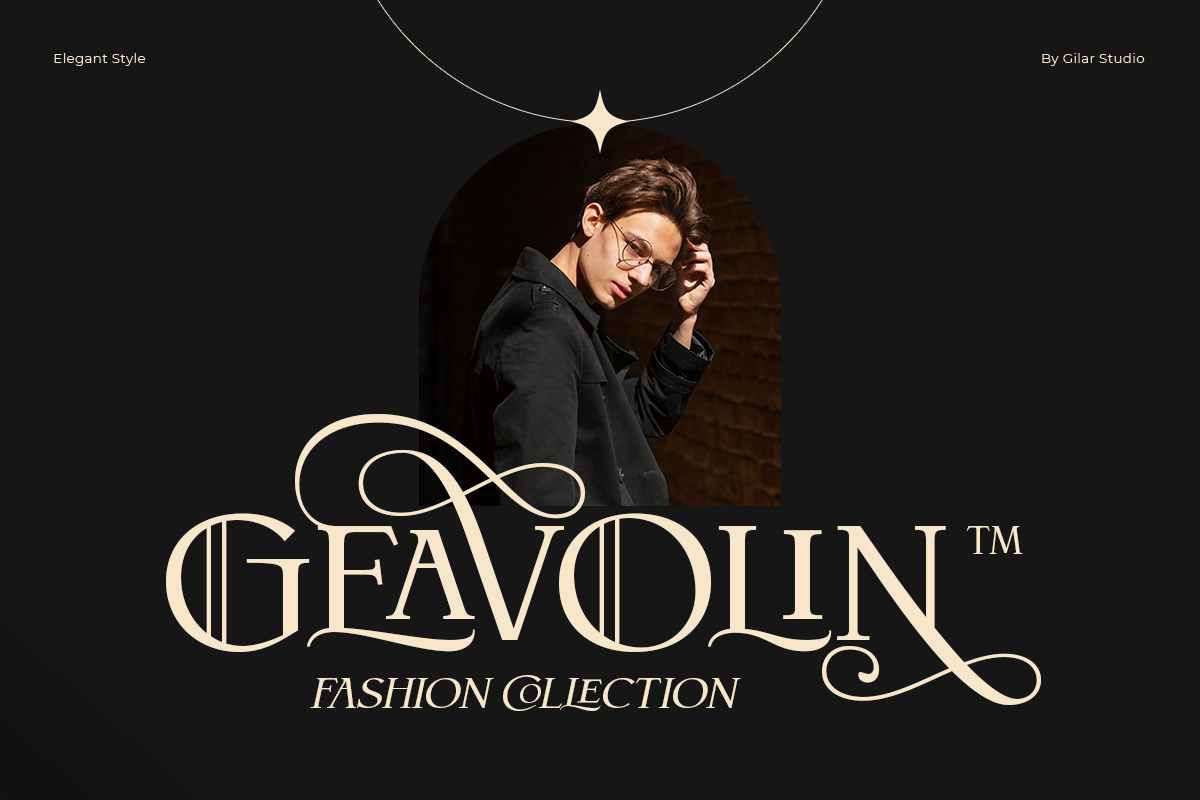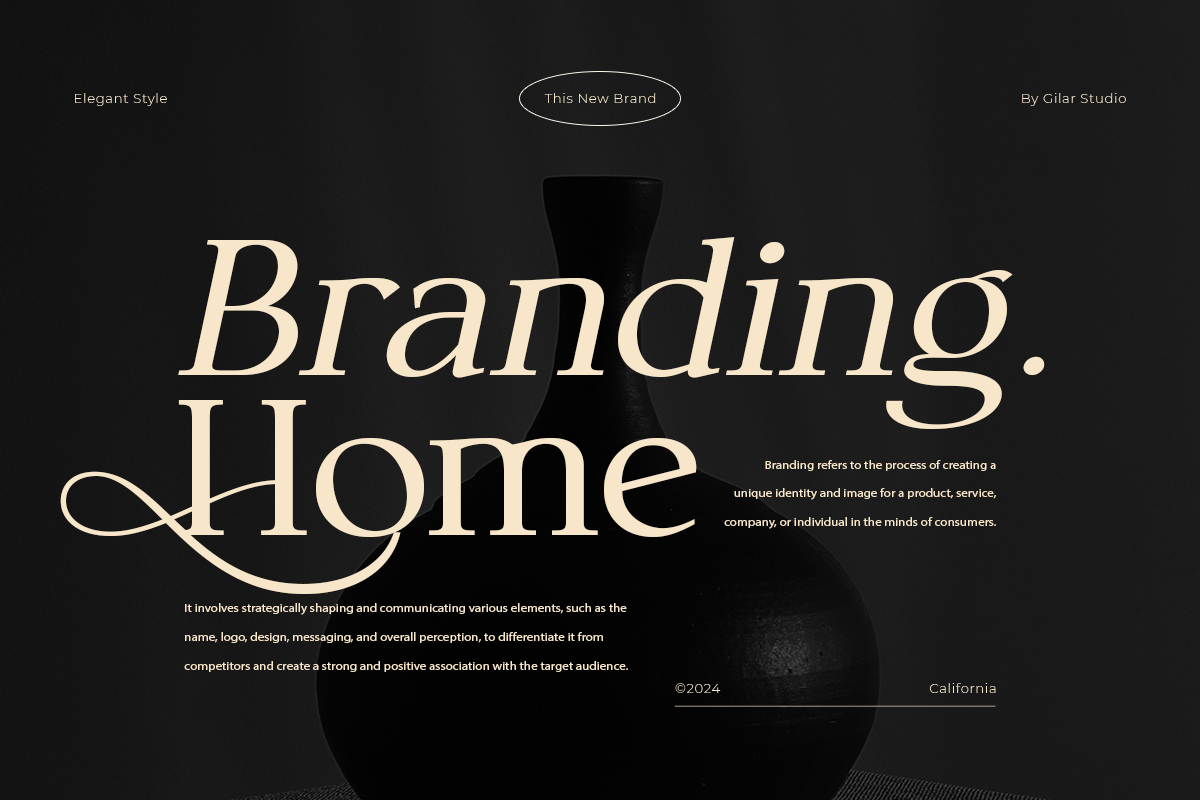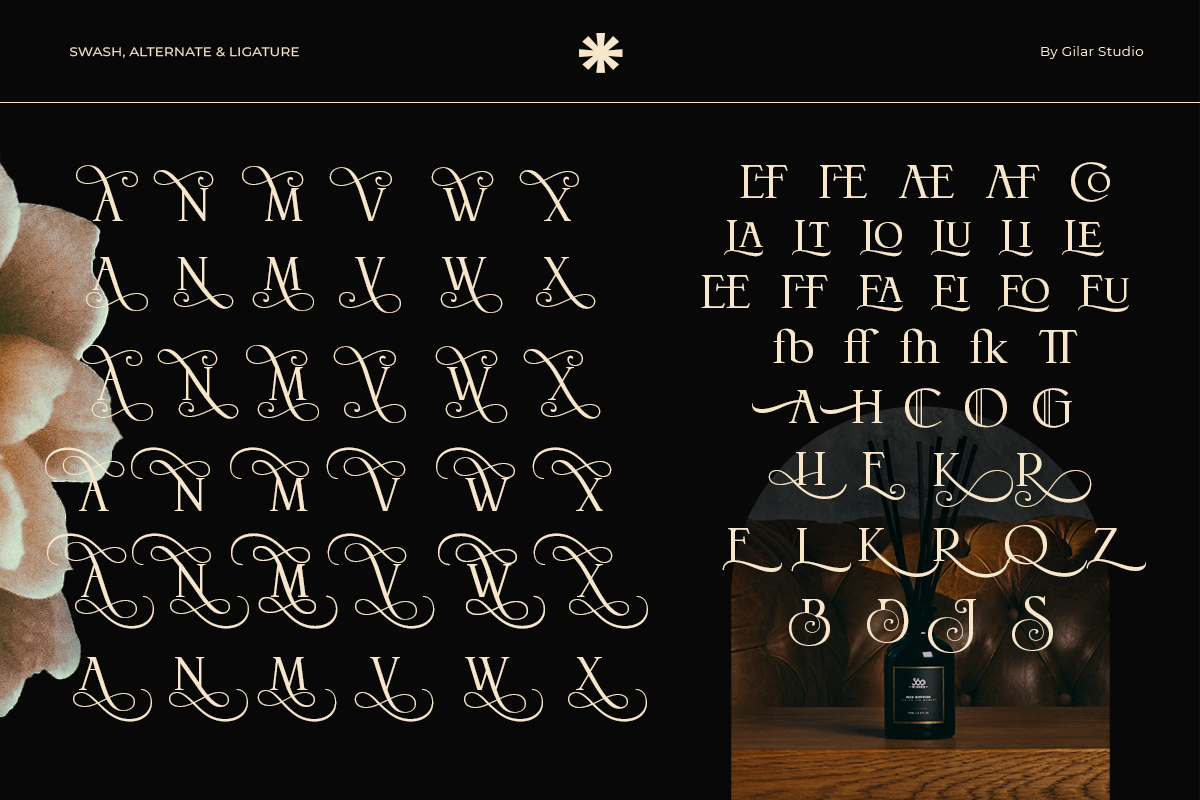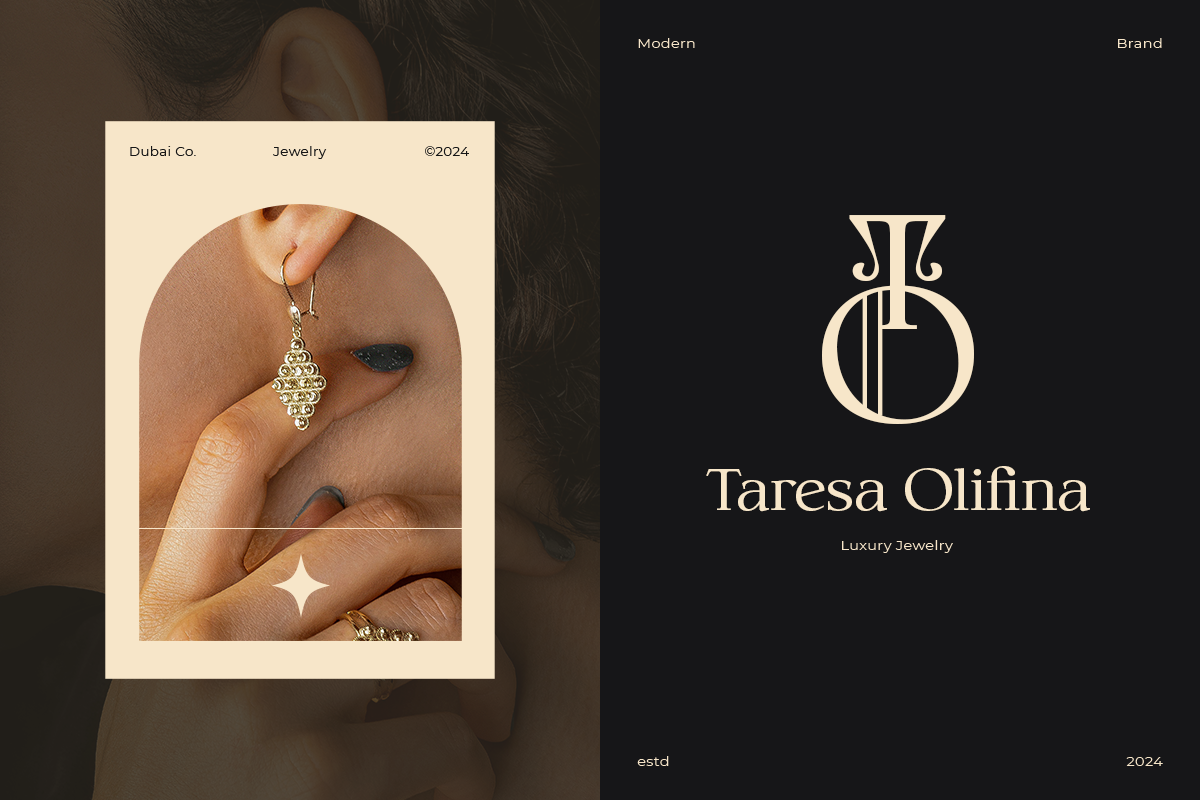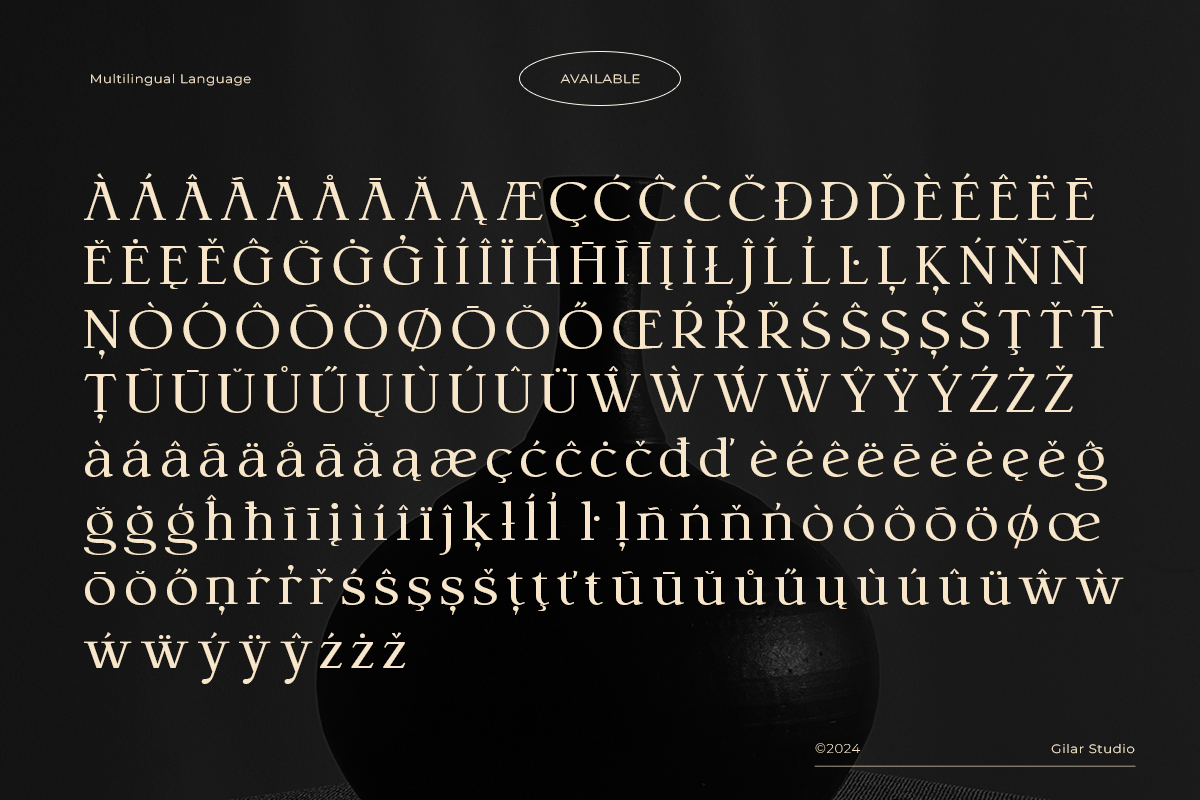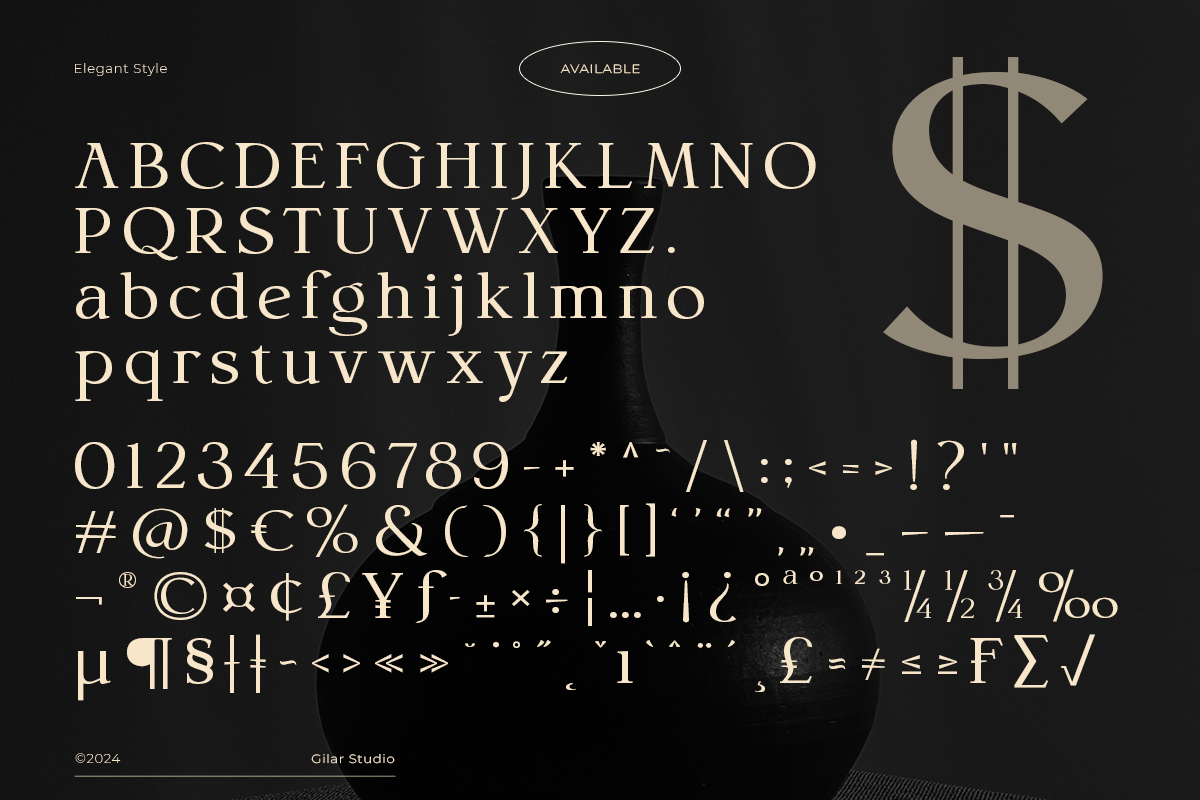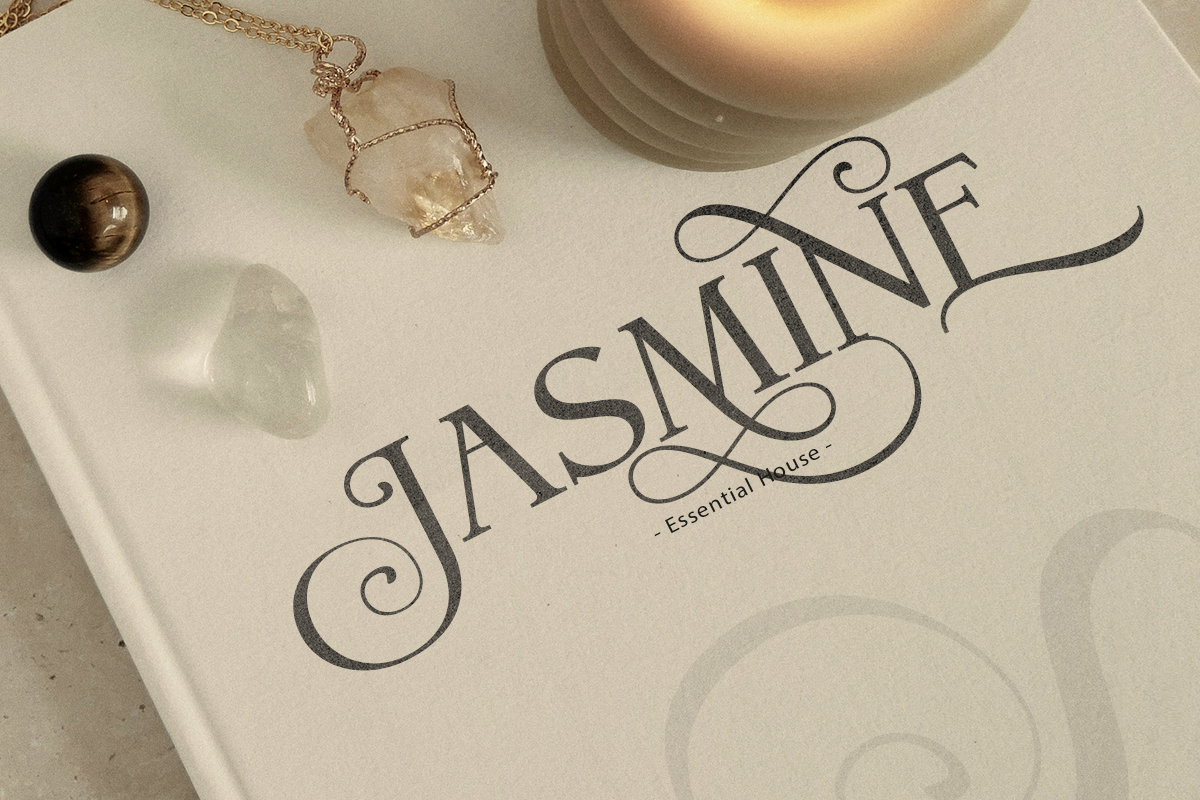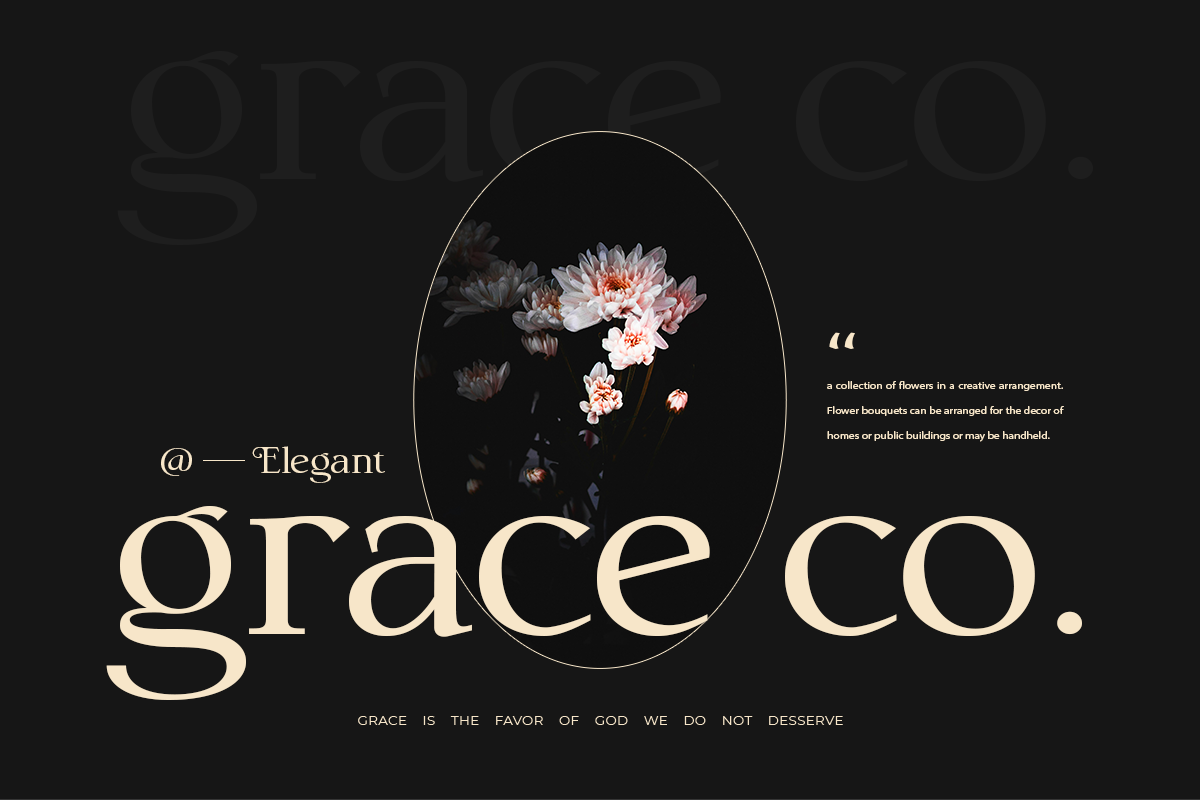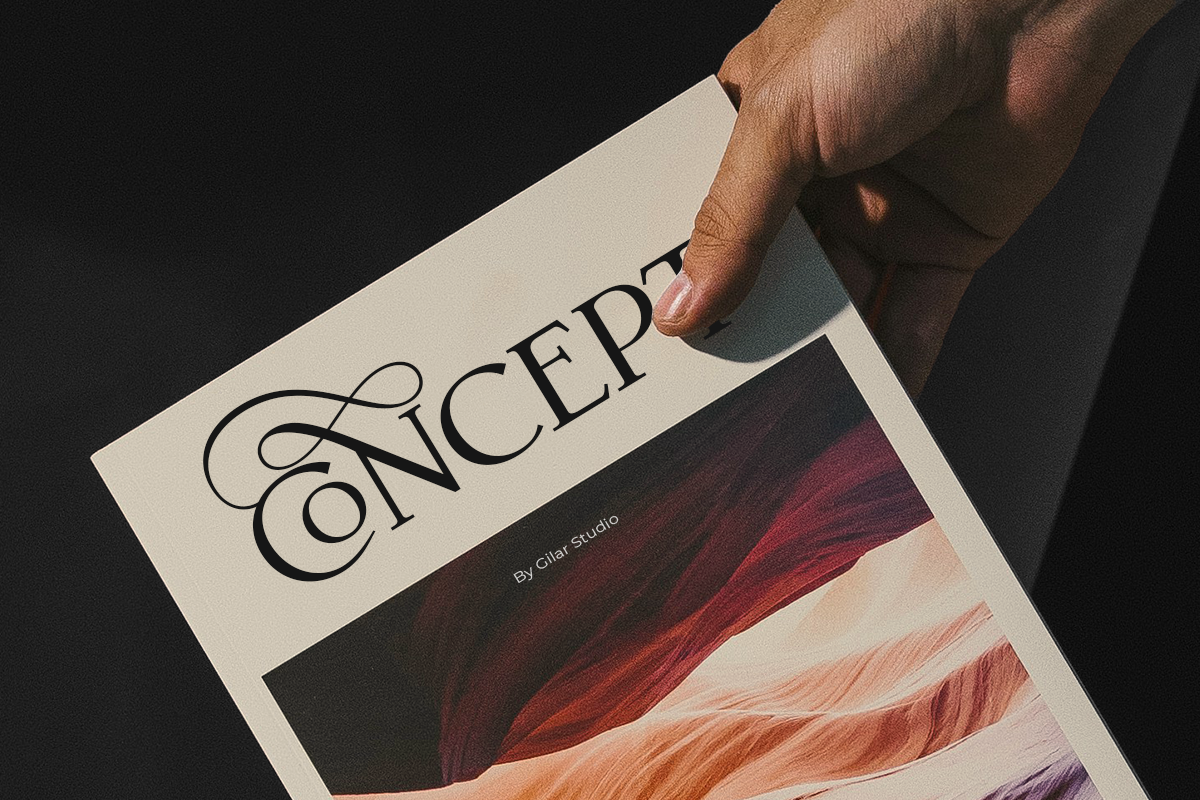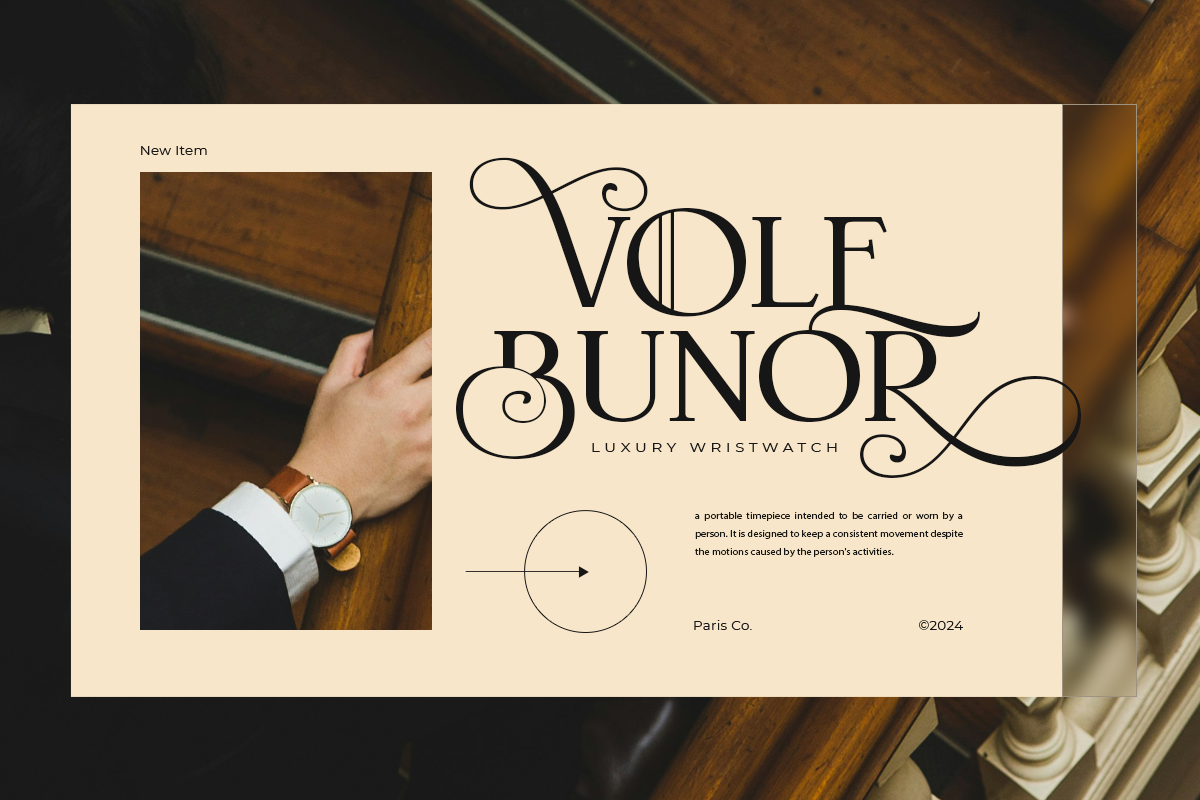
Semaro - Elegant & Luxury Font
Introducing Semaro - Modern & Luxury Font
Semaro with 2 style Regular And Oblique. will work perfectly for fashion, e-commerce brands, trend blogs, wedding boutiques or any business . suitable for Display Project.
Semaro also Suitable for Logo, greeting cards, quotes, posters, branding, name card, stationary, design title, blog header, art quote, typography, art, modern envelope lettering or book design, craft design, any DIY project, book title, or any purpose to make your art/design project look pretty and trendy.
Numerals & Punctuations
Accents/Multilingual characters
Beautyful Ligature & Swash